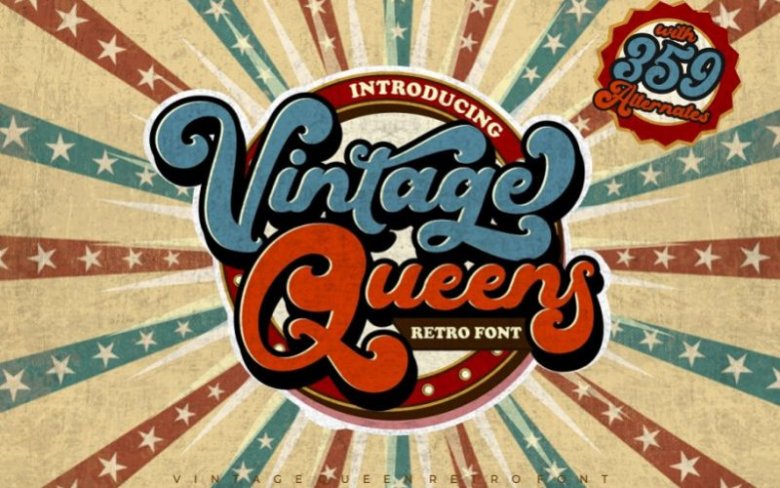
Vintage Queens Retro Script Font
Introducing a new vintage bold script called “Vintage Queens “. Inspired from retro typography and lettering in the 70’s and 80’s combine with bold typography style. With a total of 534 glyphs with 359 alternate, you can make letter combinations for lettering with a lot of options.